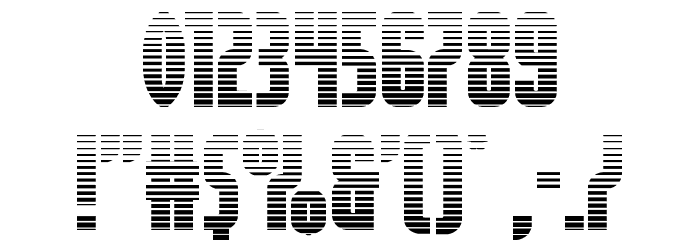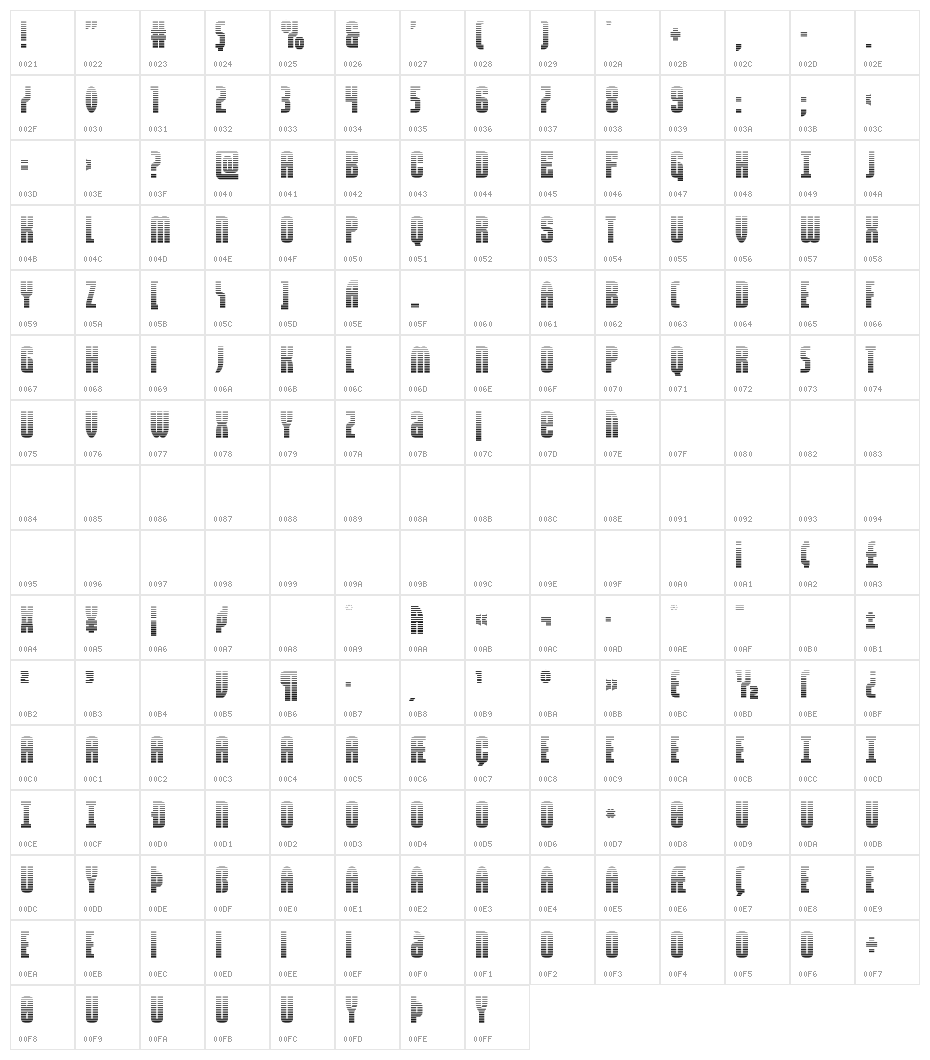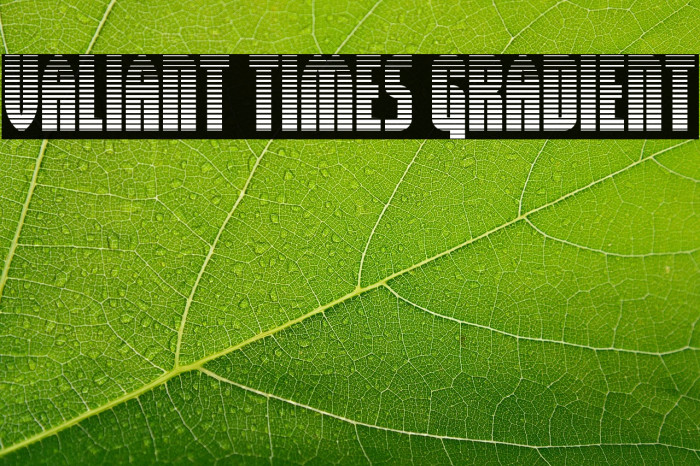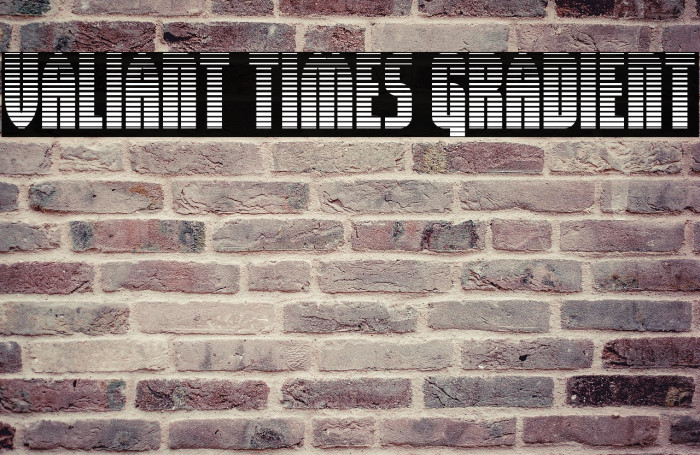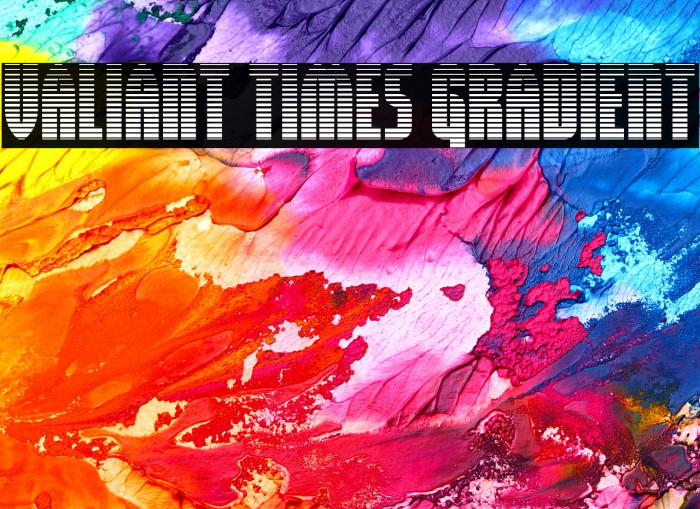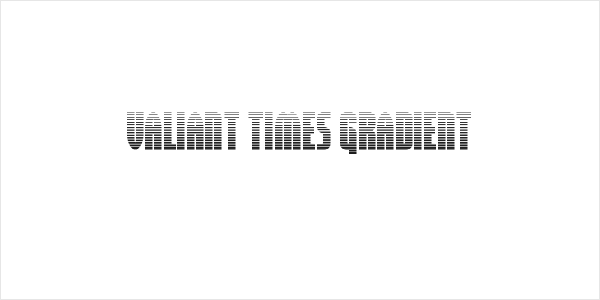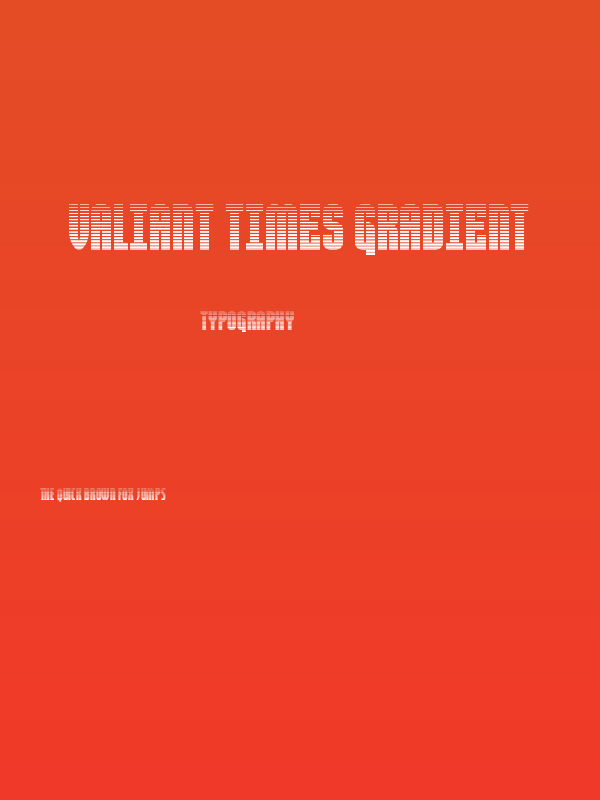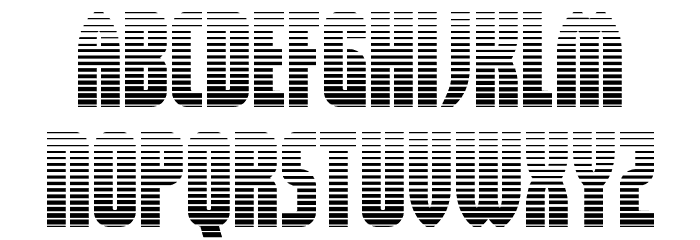
Valiant Times Gradient Font
Valiant Times Gradient Description
This font features a bold, modern design with a unique gradient effect that creates a sense of depth and dimension. The characters are constructed with horizontal lines that vary in thickness, giving the font a dynamic and eye-catching appearance. The uppercase and lowercase letters maintain a consistent style, with a strong geometric influence that enhances readability. The numbers and special characters are designed to match the overall aesthetic, ensuring a cohesive look across all text elements. This font is ideal for projects that require a striking visual impact.